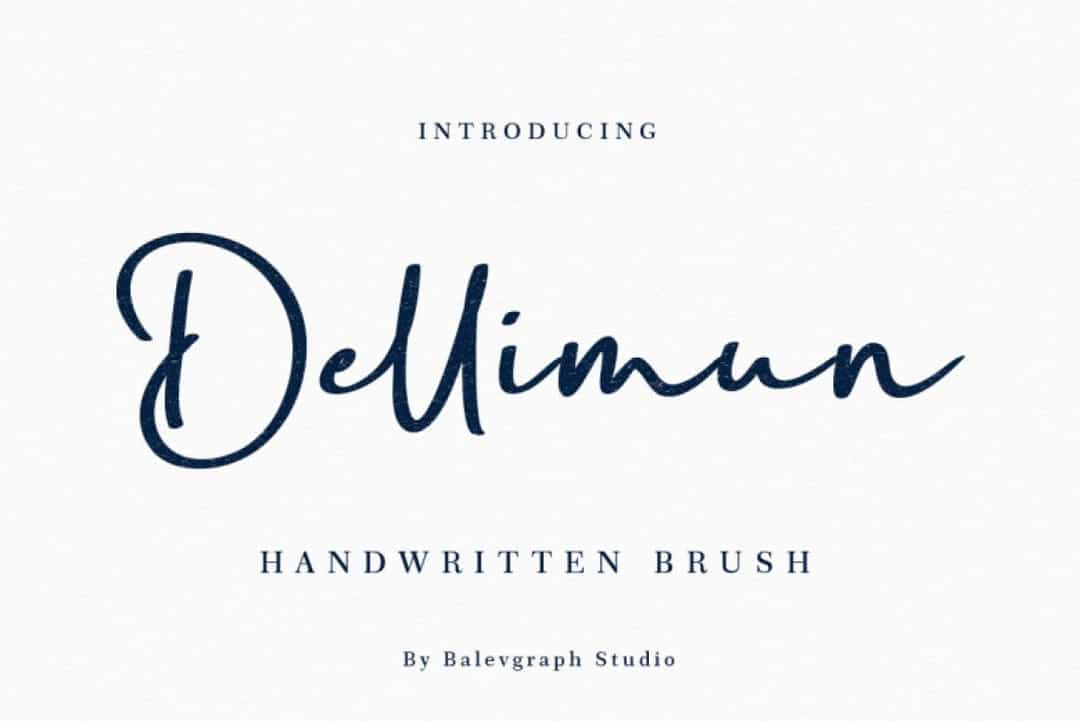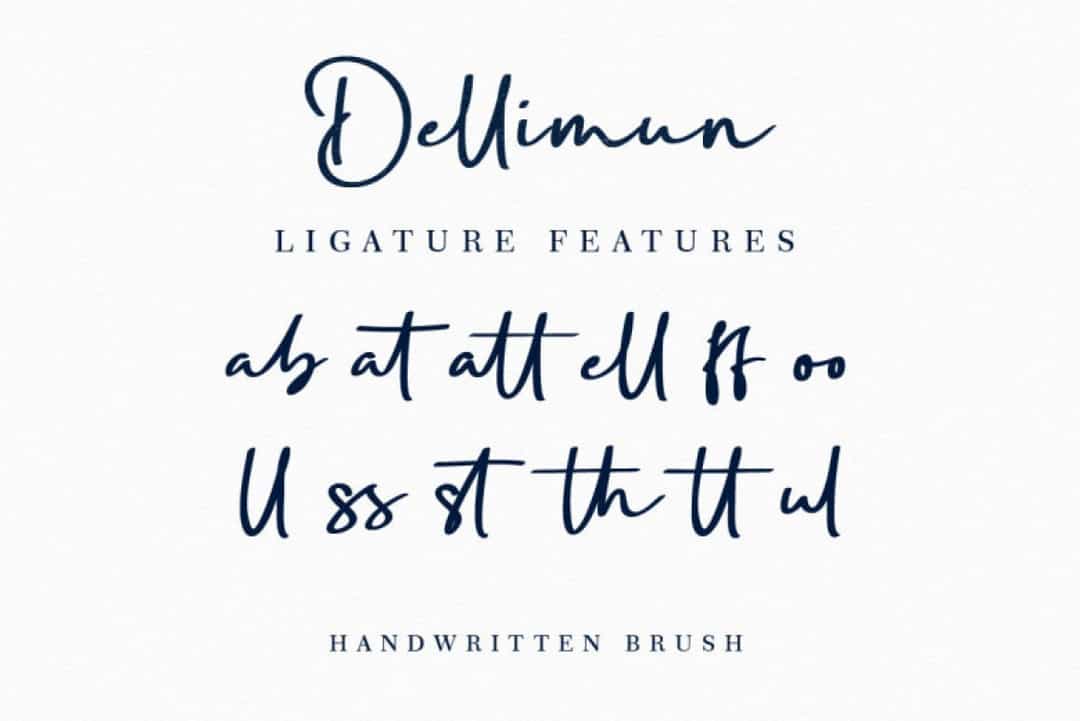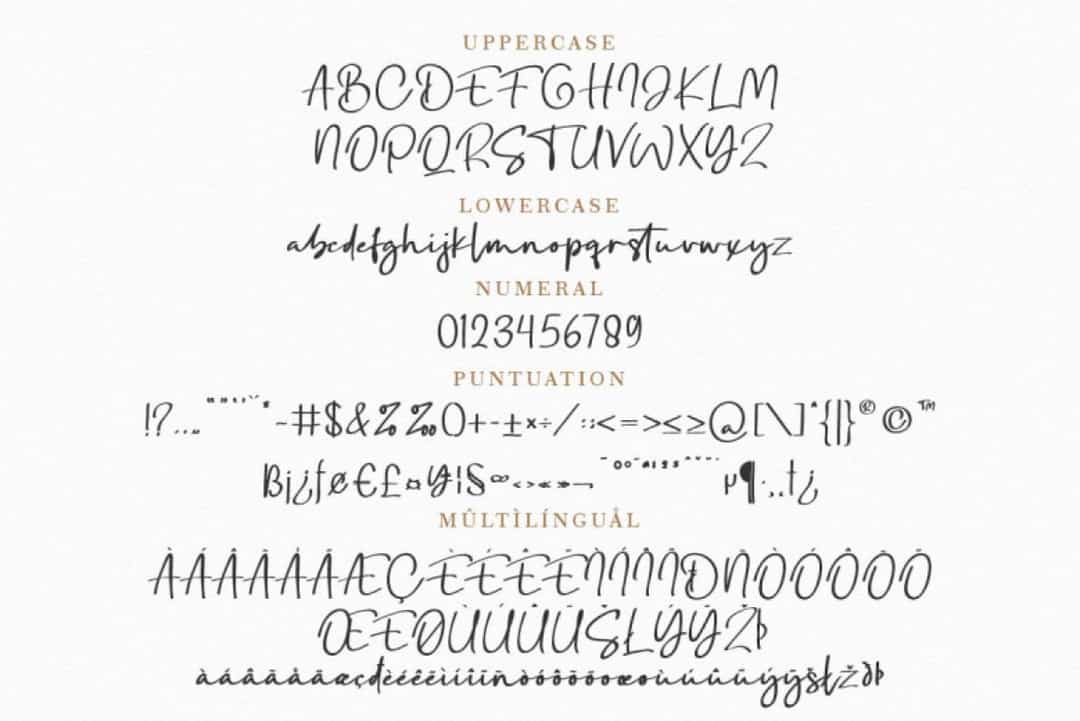
Dellimun is an exquisite brush script typeface. Elegant yet chic and delicate in its design, Dellimun will enhance any design project! PUA encoded, Dellimun offers seamless access to its characters and symbols!